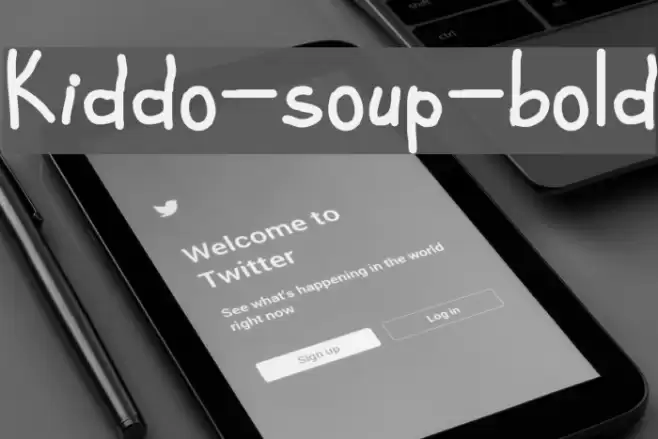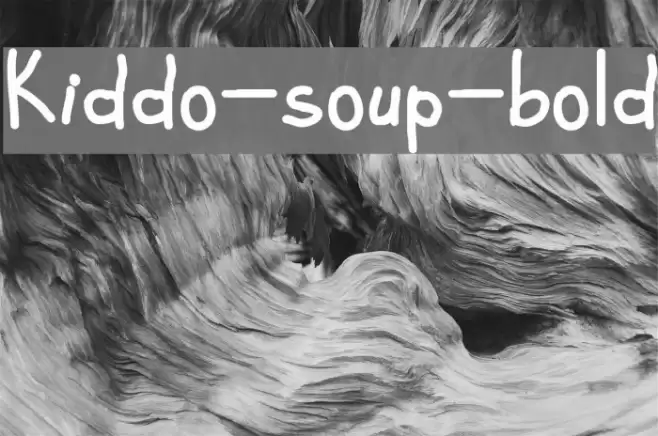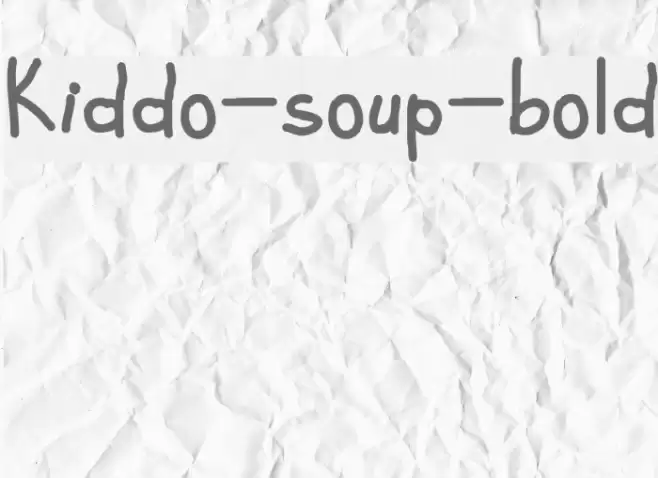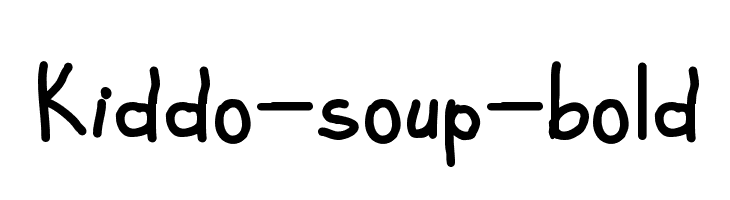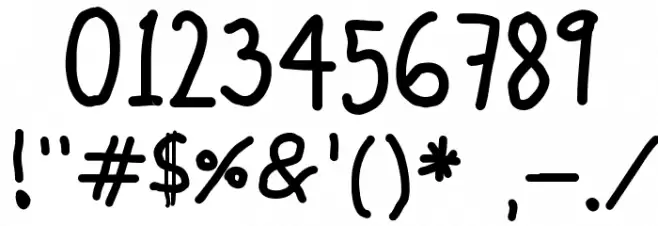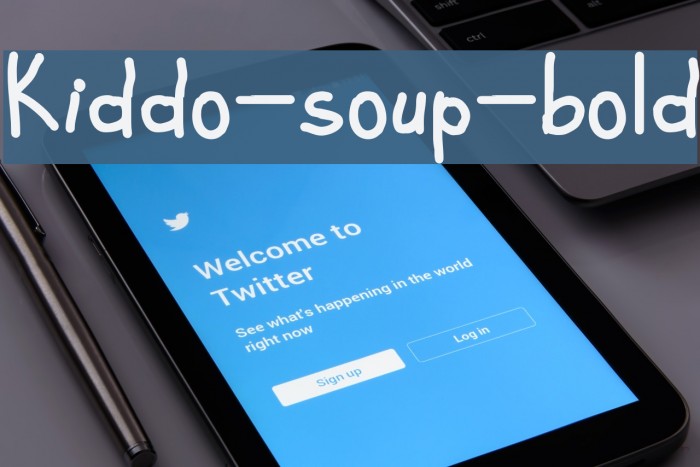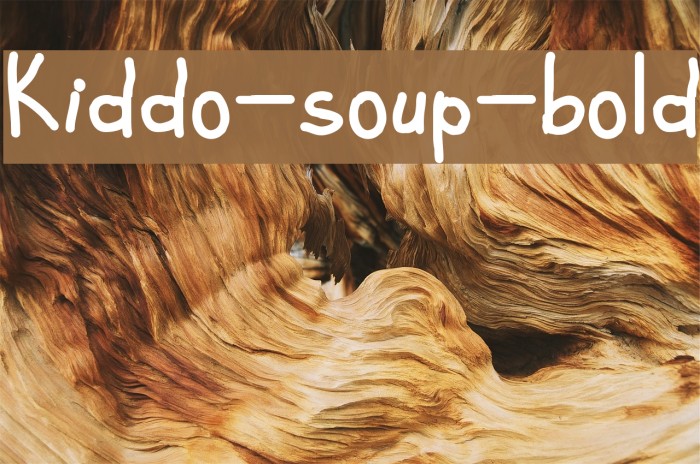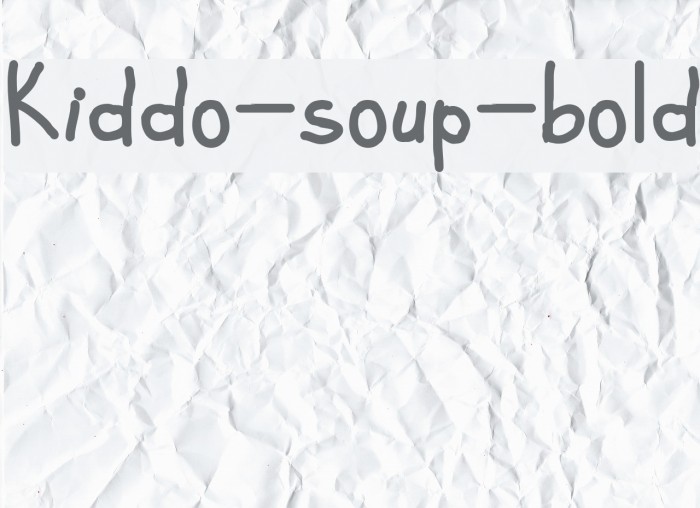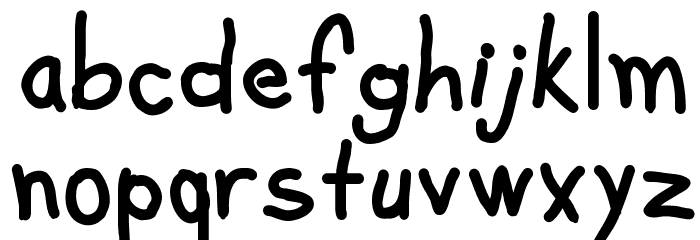
Kiddo-soup-bold Font
Kiddo-soup-bold Description
This playful and bold font features a handwritten style with a casual and friendly appearance. The letters are slightly irregular, adding a whimsical touch that is both approachable and fun. The strokes are thick and consistent, providing a strong presence on the page. The characters are well-spaced, ensuring readability while maintaining a lively and energetic feel. This font includes a full set of uppercase and lowercase letters, numbers, and a variety of special characters, making it versatile for different design needs.
A bold, playful handwritten font with a casual and friendly vibe from Handwritten fonts.
- Proposed Projects: Ideal for children's books, playful branding, greeting cards, and informal invitations.
- Overall Style: Playful
- Use Case: Headlines, Logos, Informal Text